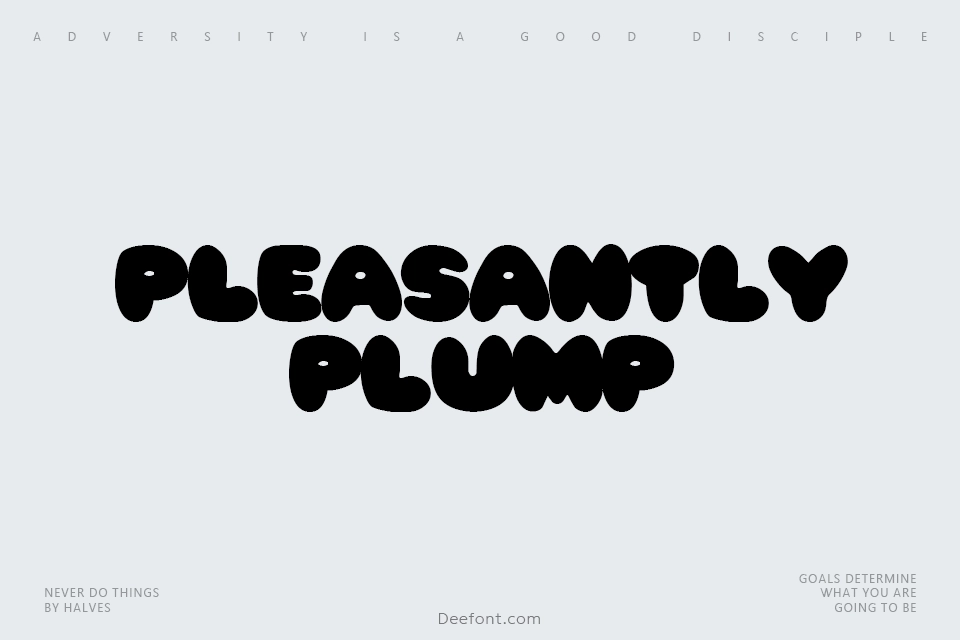
Pleasantly Plump Font
Pleasantly Plump is a whimsical display font featuring balloon-shaped, rounded letterforms that deliver cartoon charm and playful character. Perfect for children's designs, novelty projects, and creative compositions seeking joyful, informal typography, this typeface combines smooth legibility with distinctly friendly aesthetics for effective communication in playful contexts.